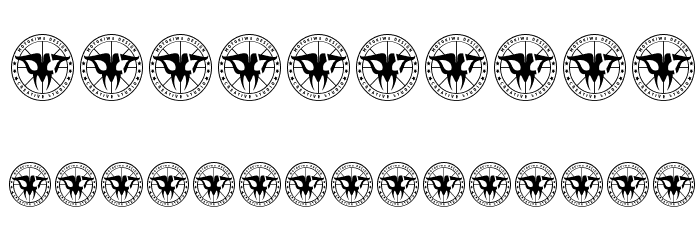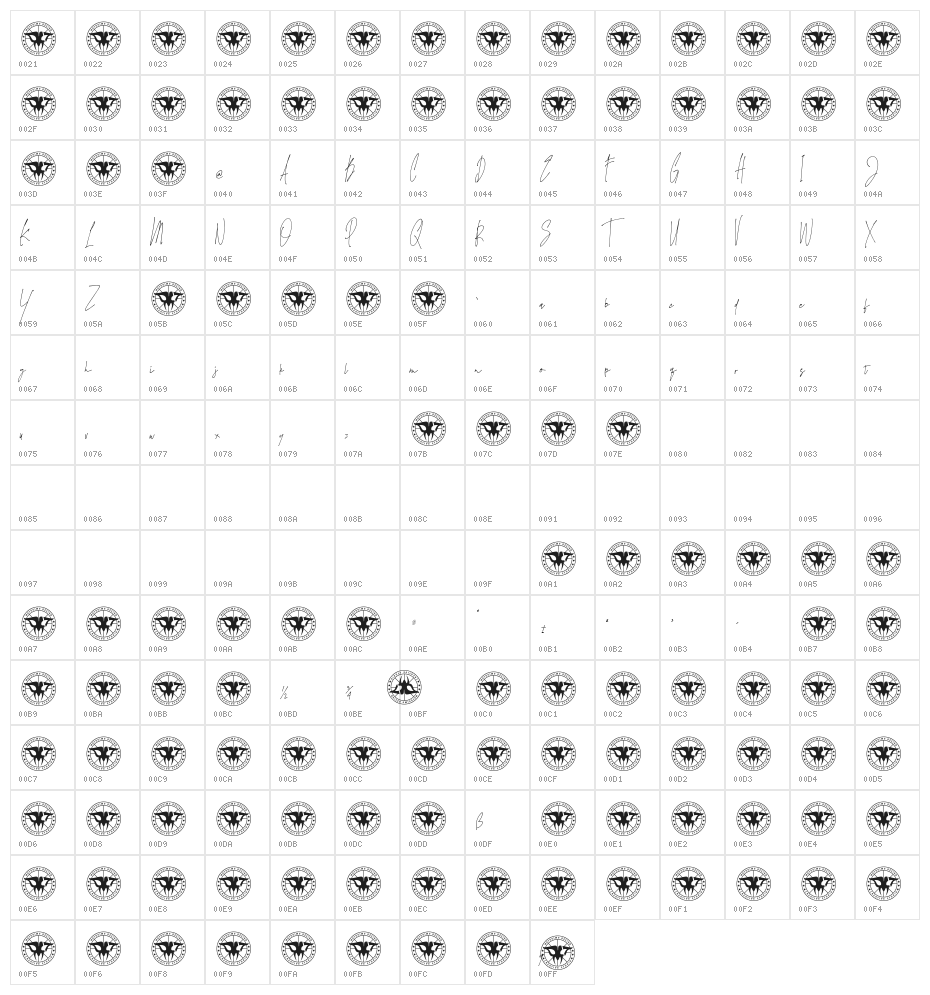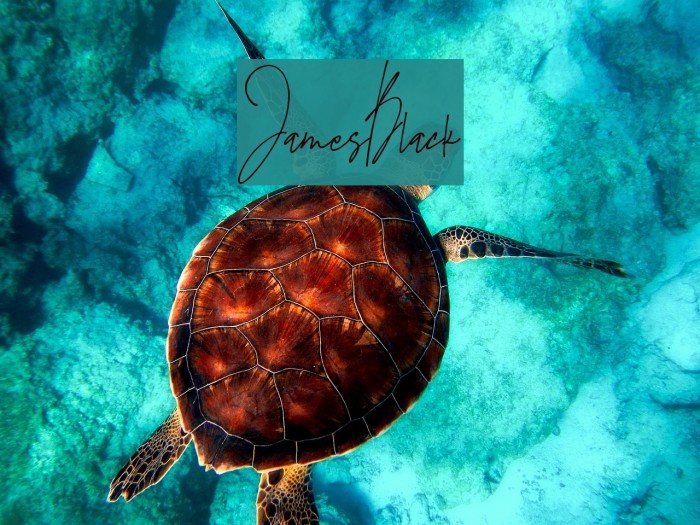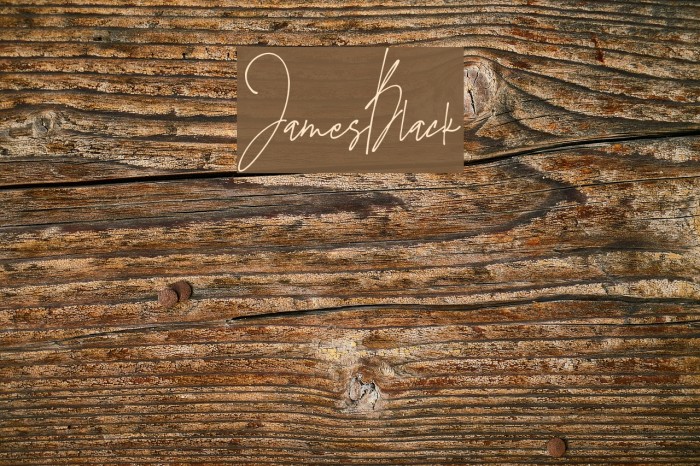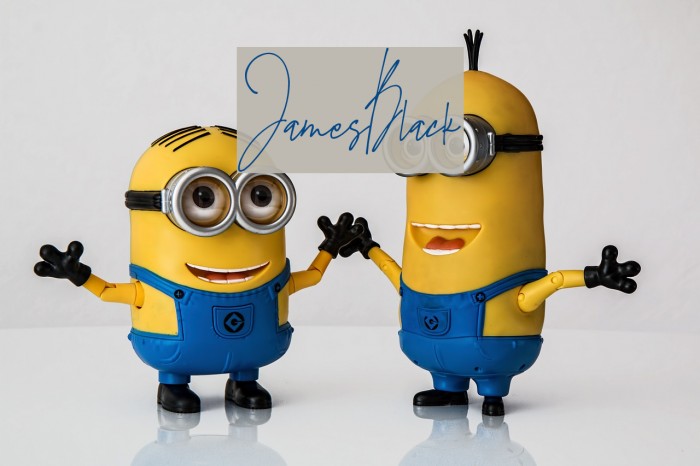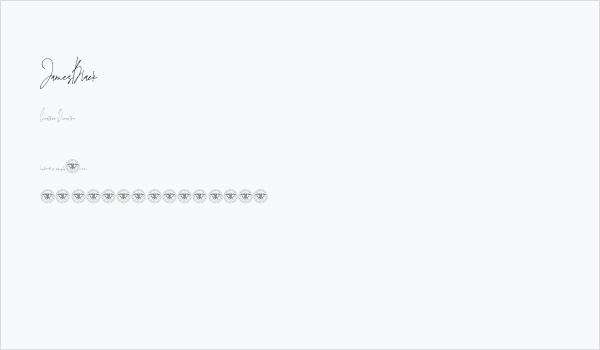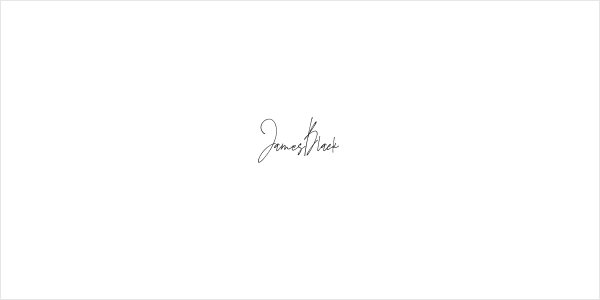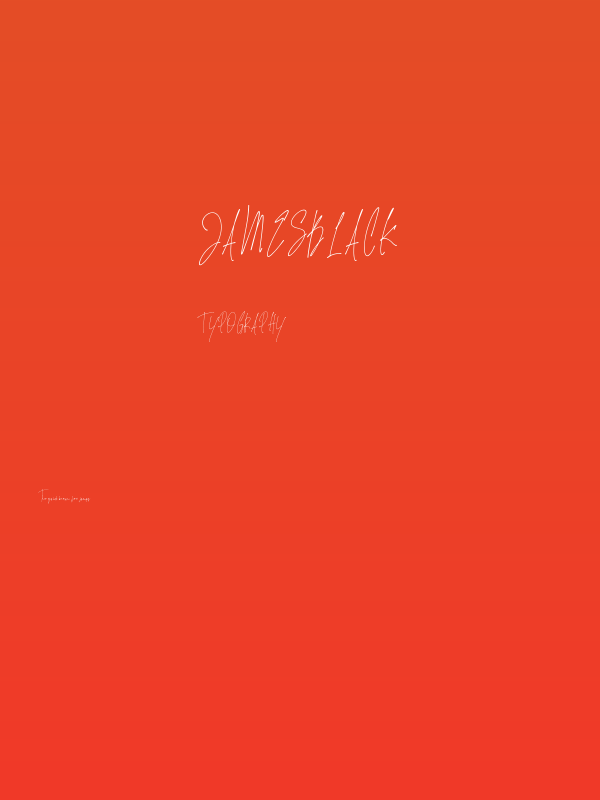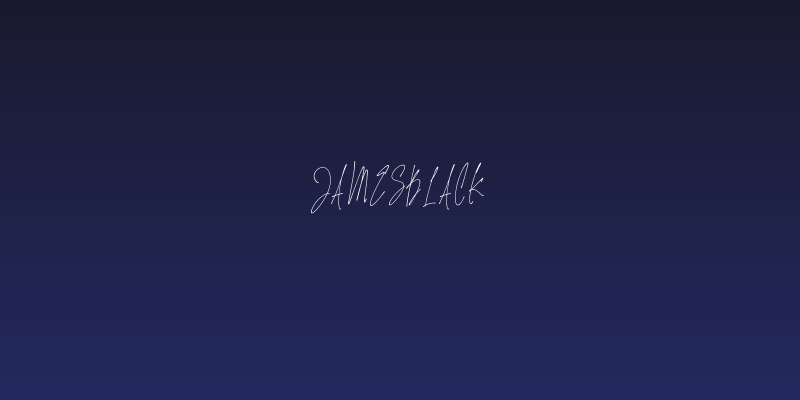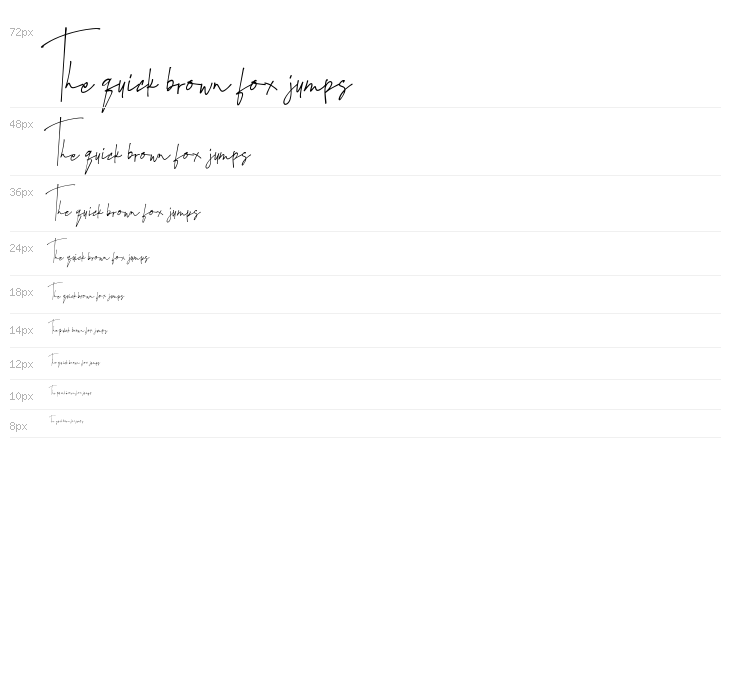
JamesBlack Font
JamesBlack Description
This font features a distinctive handwritten style, characterized by its elongated and slightly irregular letterforms. The uppercase letters exhibit a playful, yet elegant flair with varying stroke widths that add a dynamic quality to the text. The lowercase letters maintain a consistent flow, enhancing the font's organic and natural appearance. The overall design is reminiscent of a casual script, offering a personal touch that is both approachable and stylish. The inclusion of special characters ensures versatility, making it suitable for a variety of creative applications.
| Overall Style | Casual, Artistic |
| Proposed Projects | Ideal for personal branding, invitations, greeting cards, and artistic projects that require a personal touch. |